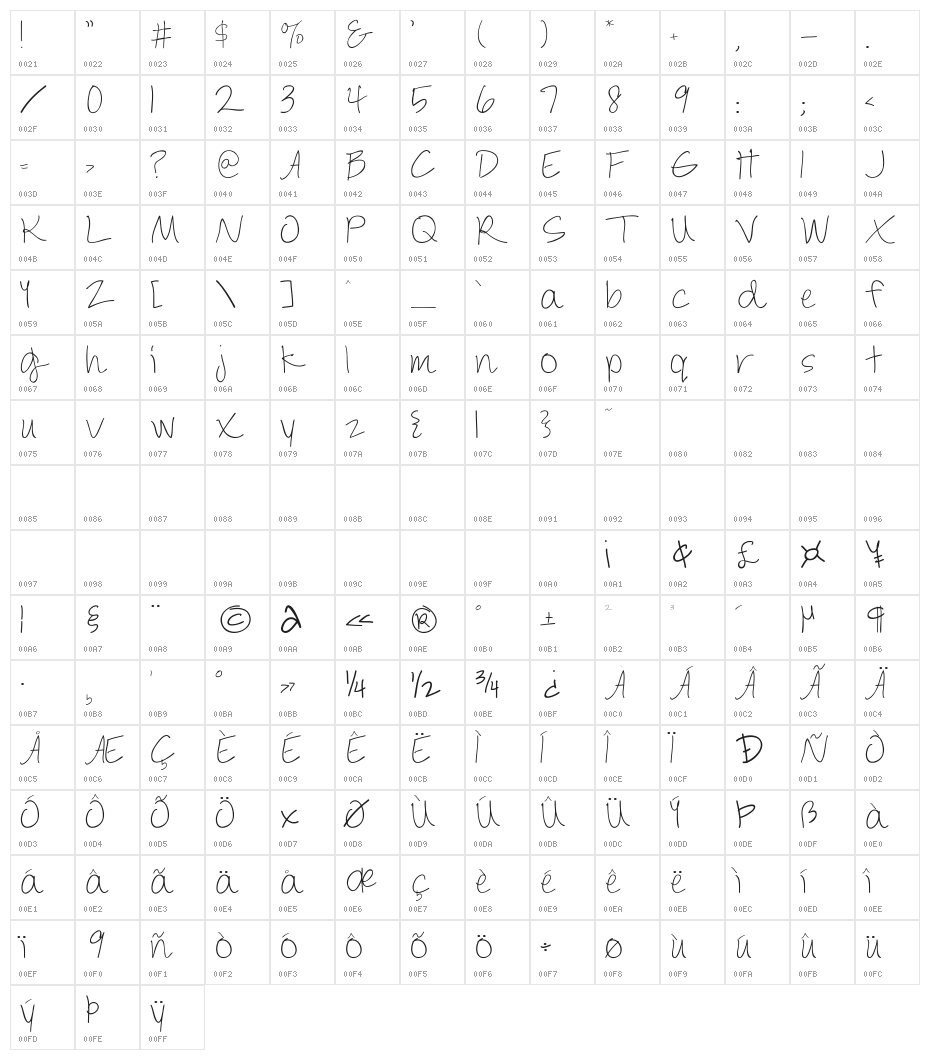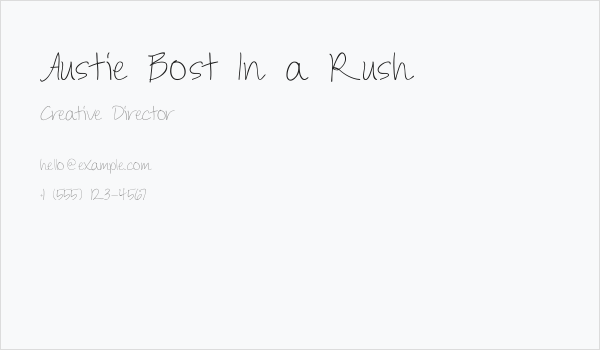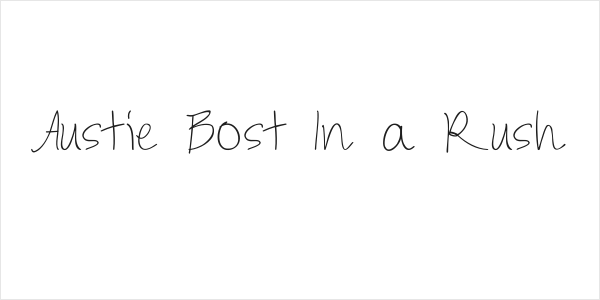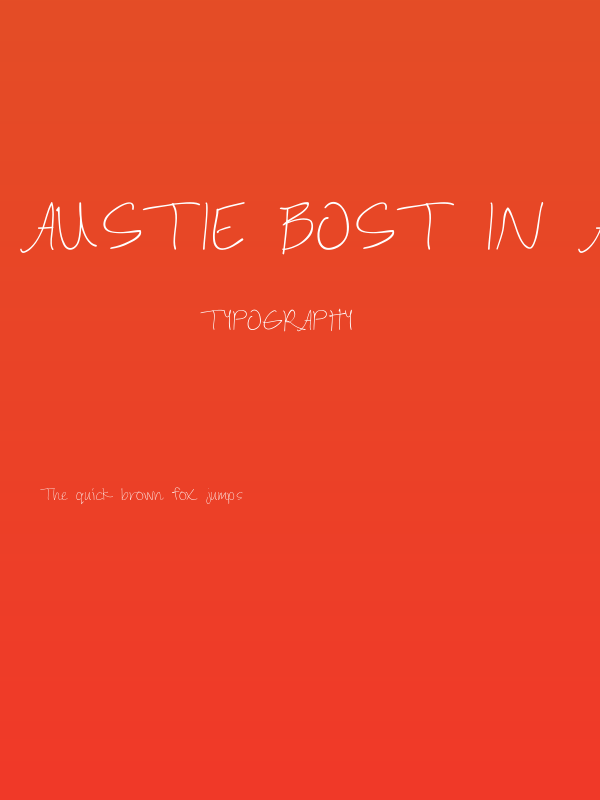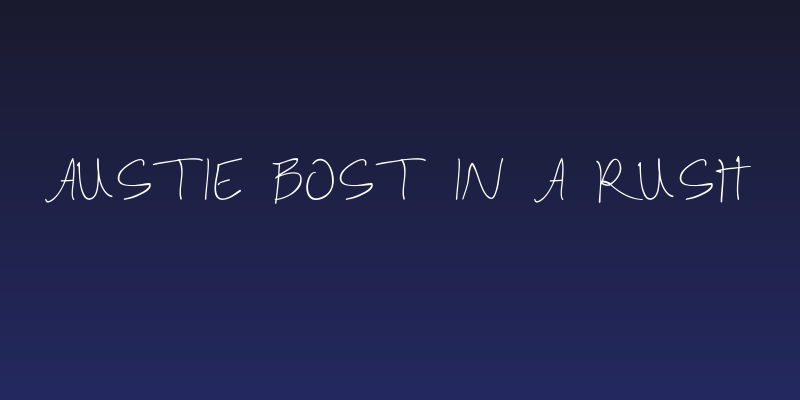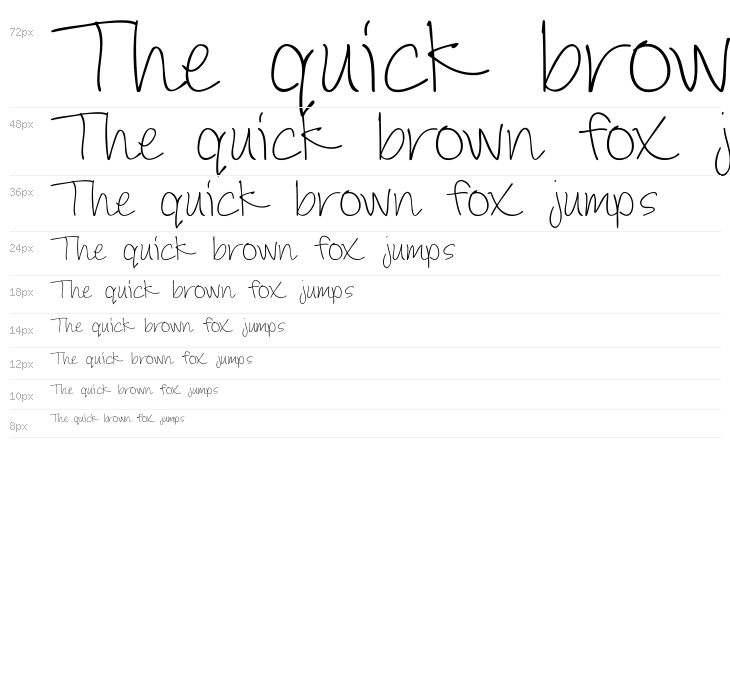
Austie Bost In a Rush Font
Austie Bost In a Rush Description
This font features a playful and casual handwritten style, characterized by its loose, flowing strokes and slightly uneven baseline. The letters have a natural, organic feel, with varying stroke widths that add to its informal charm. The uppercase letters are tall and slender, while the lowercase letters maintain a consistent height, creating a harmonious balance. Numbers and special characters follow the same whimsical style, making the font versatile for creative projects. Its overall appearance is friendly and approachable, suitable for conveying a personal touch.
| Use Case | Logos, Headlines, Informal text |
| Proposed Projects | Ideal for greeting cards, personal invitations, children's books, and playful branding. |